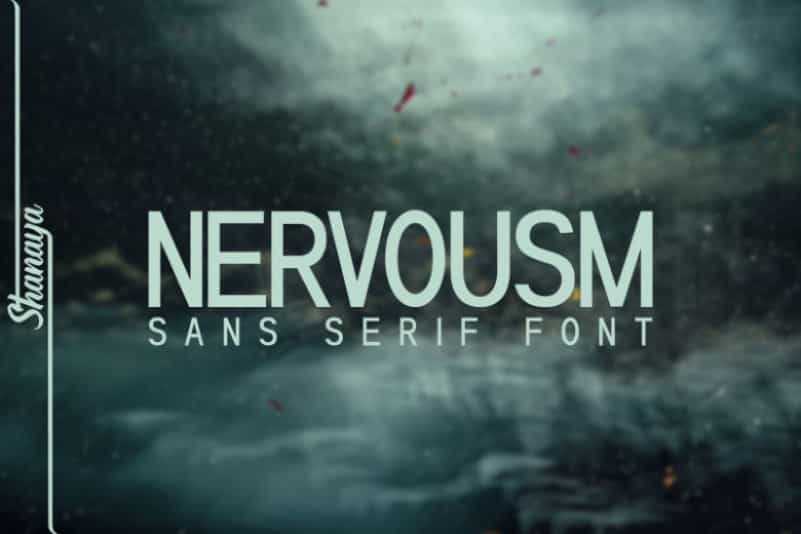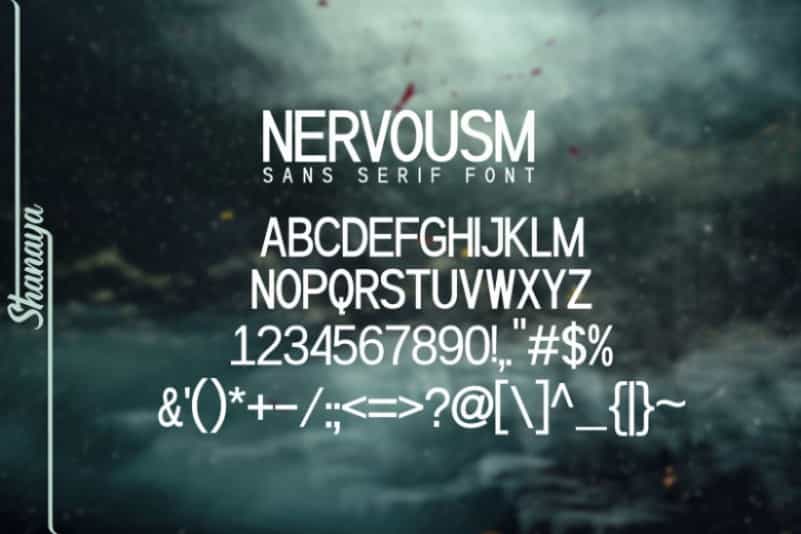
Nervousm is a Sans Serif Font that is inspired by the condensed typographic style that has been around for many years. Plain geometry with humanistic touch that puts in the warmth. it is ideal for branding, magazines, posters, advertising, packaging, headlines, logos, web, print, and many more.